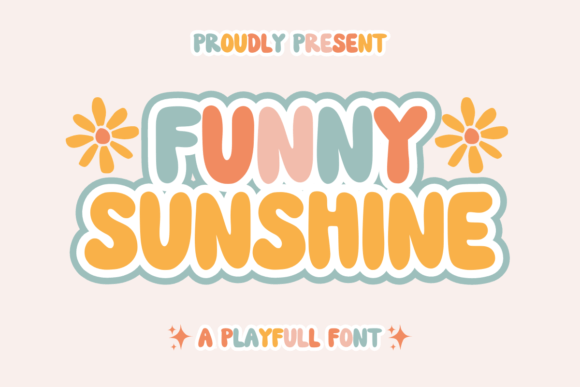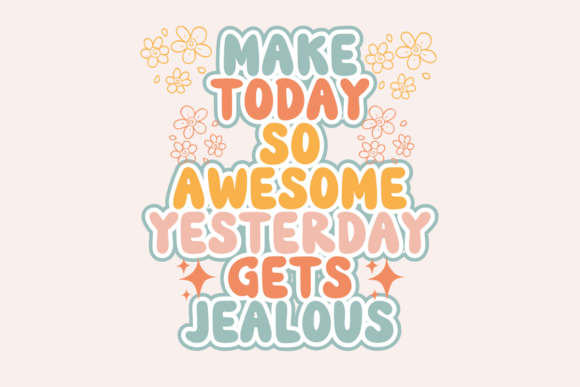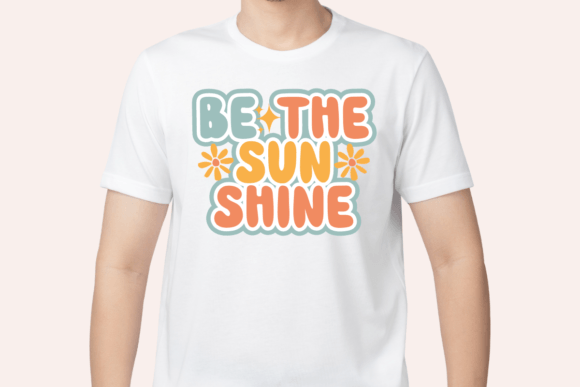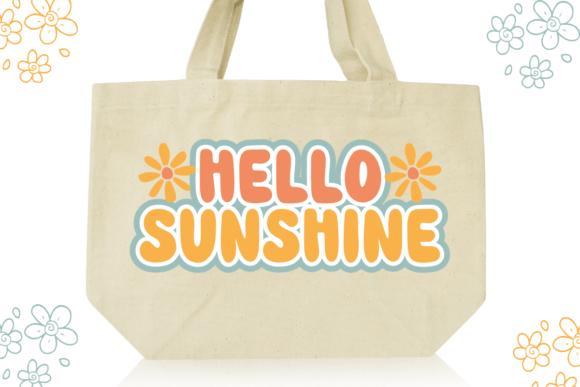
Funny Sunshine Font: A Cute & Playful Display Font for Cricut
About the Funny Sunshine Font
The wait is over! The incredible Funny Sunshine Font is now available for your design toolkit. Funny Sunshine is a playfull and cute font, it’s perfect for designs that need a playful, cheery accent. Funny Sunshine is suitable for book covers, posters, packaging, merchandise, logotypes, and many more!
Funny Sunshine’s playful character makes it ideal for children’s books, greeting cards, and branding for companies targeting a young, fun-loving audience. It works exceptionally well in headlines, short phrases, and logos, adding a touch of whimsy. However, its informal style is less suitable for body text or situations requiring high readability over extended lengths.
Consider pairing Funny Sunshine with a clean sans-serif like Open Sans for body copy to create a balanced contrast. For a more sophisticated feel, a delicate serif font such as Lora can add a touch of elegance without overpowering the playful nature of Funny Sunshine. Avoid pairing it with overly serious or geometric fonts, as this might clash with its inherent lightheartedness.
The font’s overall personality is undeniably cheerful and friendly, making it a great choice for projects that aim to evoke joy and positive emotions.